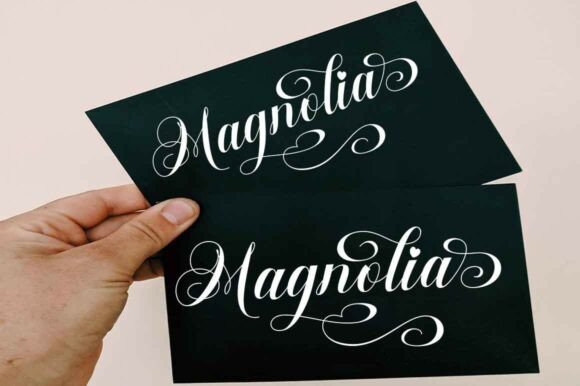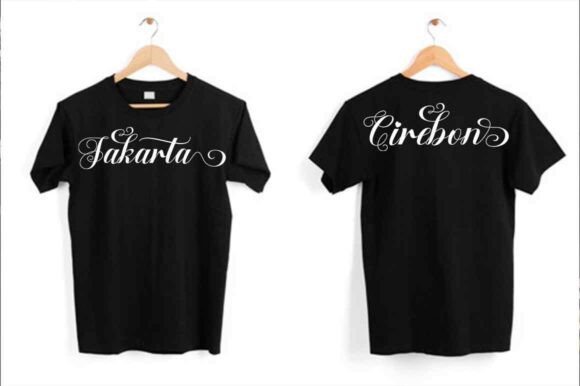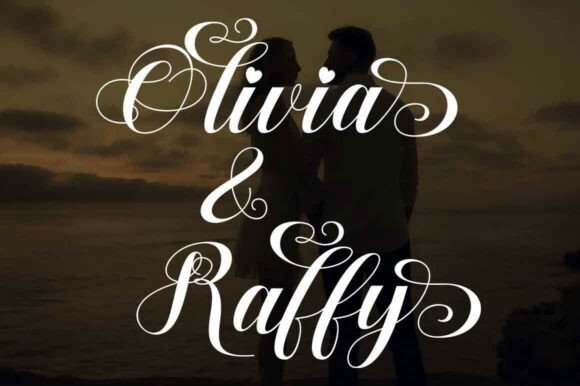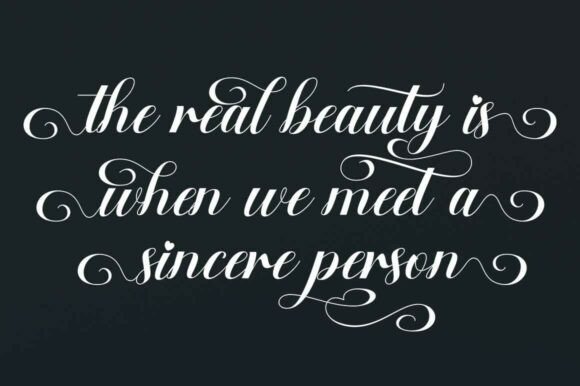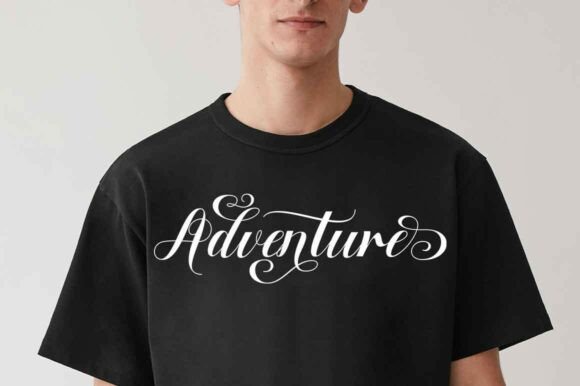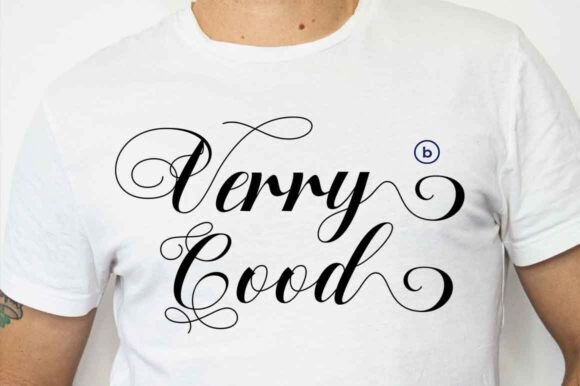
Introduction to Murahthat Calligraphy Font
Murahthat Calligraphy is a calligraphy font that comes with a very beautiful character change, a kind of classic decorative copper script with a modern touch, designed in great detail for an elegant style.
Murahthat Calligraphy is attractive because it is smooth, clean, feminine, sensual, glamorous, simple, and very easy to read, due to the many luxurious letter connections I also offer several alternative styles that are worthy of many letters.